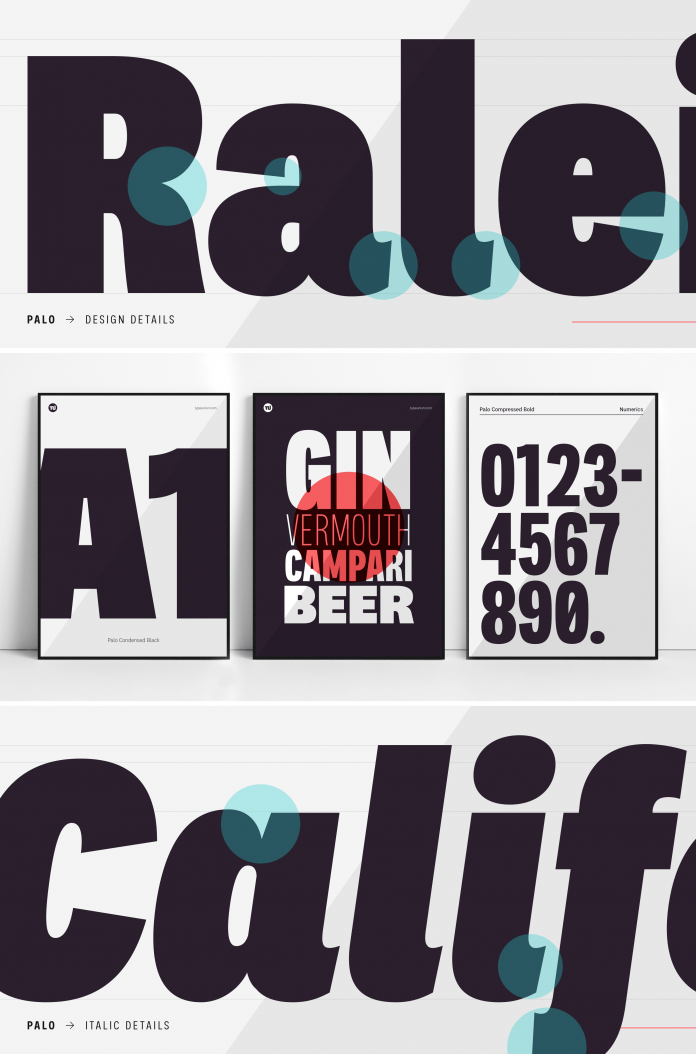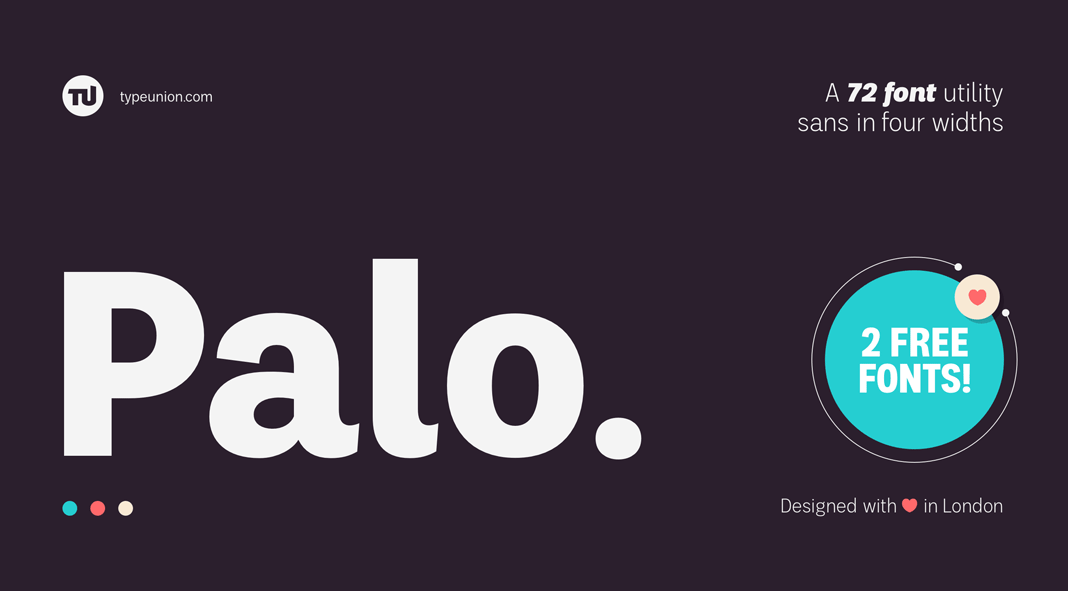
Designed by Dan Jones for foundry TypeUnion, Palo is a modern sans-serif font family with seventy-two styles.
Consisting of 72 styles, Palo is a massive font system built around 4 widths and 9 weights plus matching italics for each weight. With Palo, type designer Dan Jones has created a semi-grotesque appearance offering a unique personality while the stylistic alternates give the typeface a true sense of flexibility. Palo’s three stylistic sets provide fluid design options, while its case-sensitive punctuation and ligatures offer a professional touch. To learn more, just click on one of the following links.